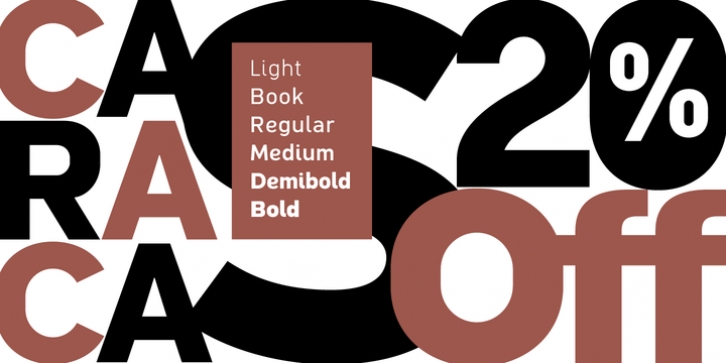
Caracas is a family of sans serif fonts, looking friendly, sweet and comfortable to read. Where text flow between straight lines and round by becoming transparent in the interest of readability. Caracas is ideal for working in small letters and texts of a technical nature. Caracas is a humanistic approach to reading sans forms.